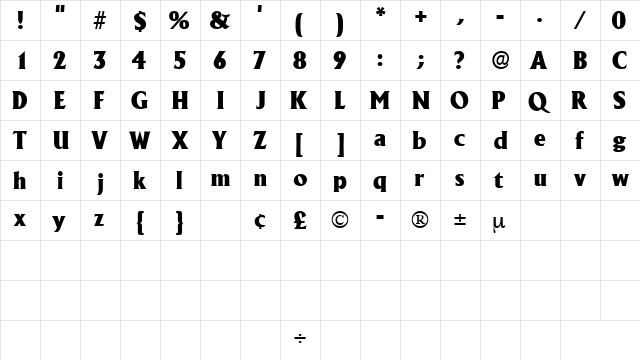
AnkuraSSK Regular
Design Context for AnkuraSSK Typeface
AnkuraSSK offers clean, dependable letterforms without strong stylistic allegiance, making it a practical choice for designers who need flexibility.
Pro Tip: Use AnkuraSSK in both headline and body roles to test its range before committing to a single application.